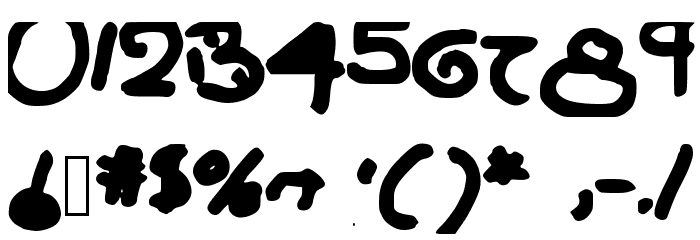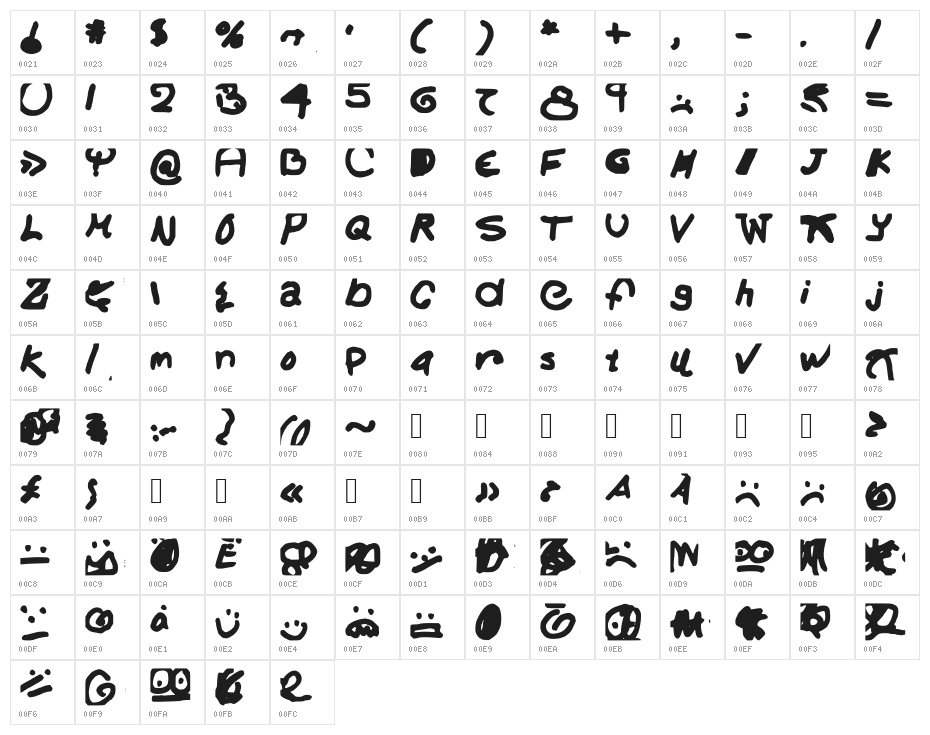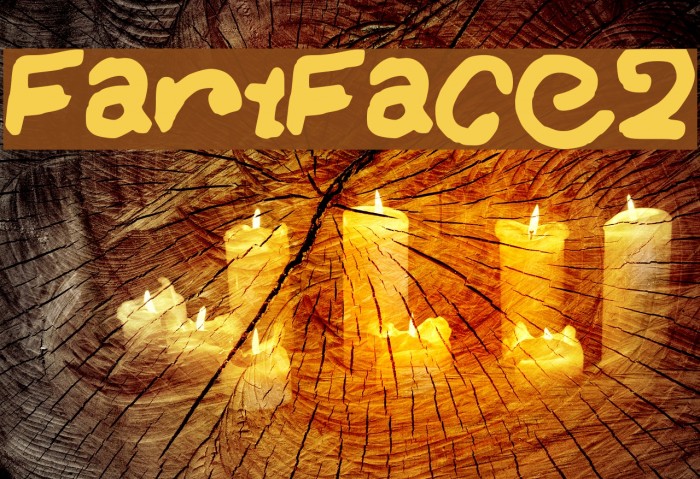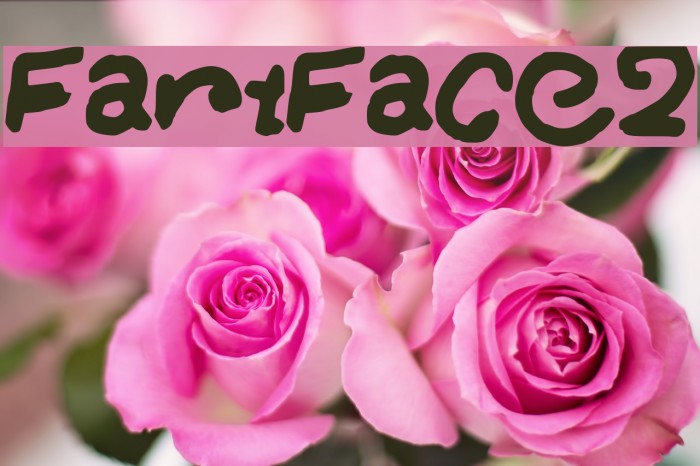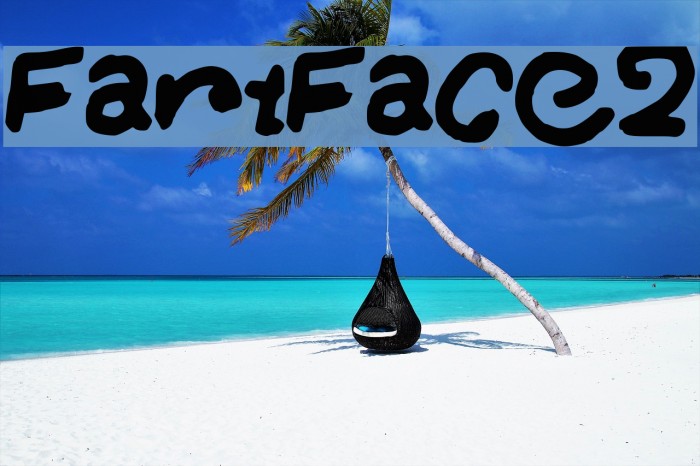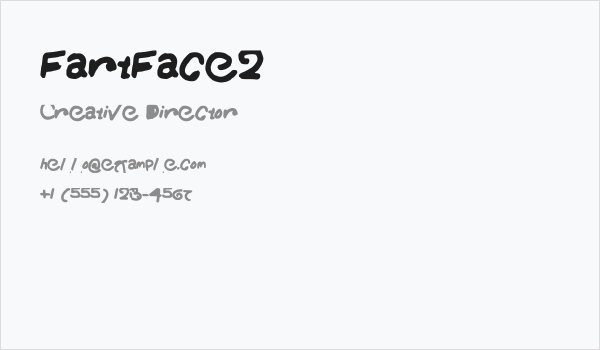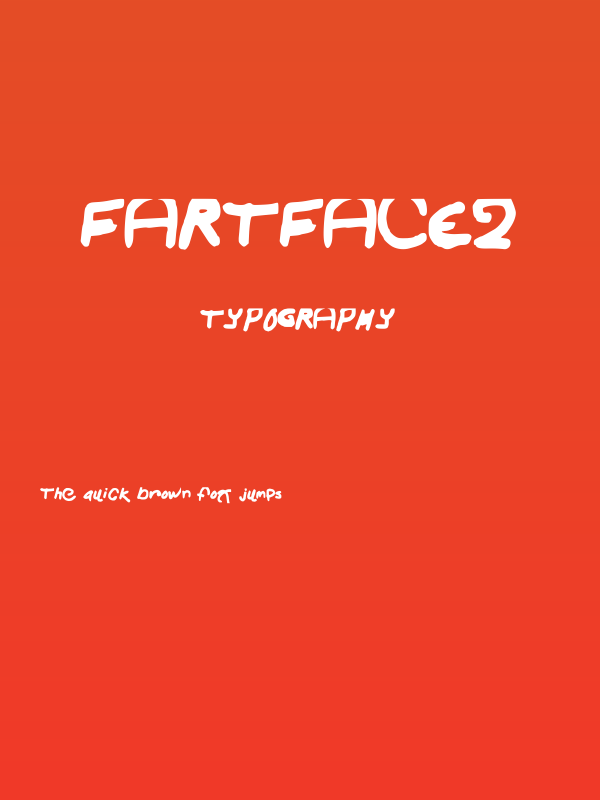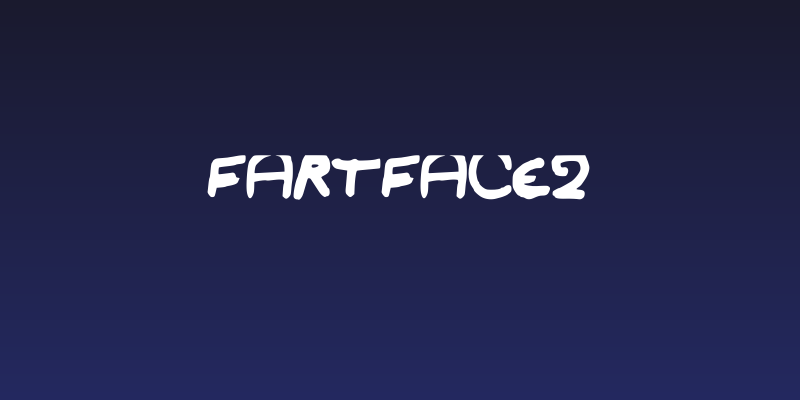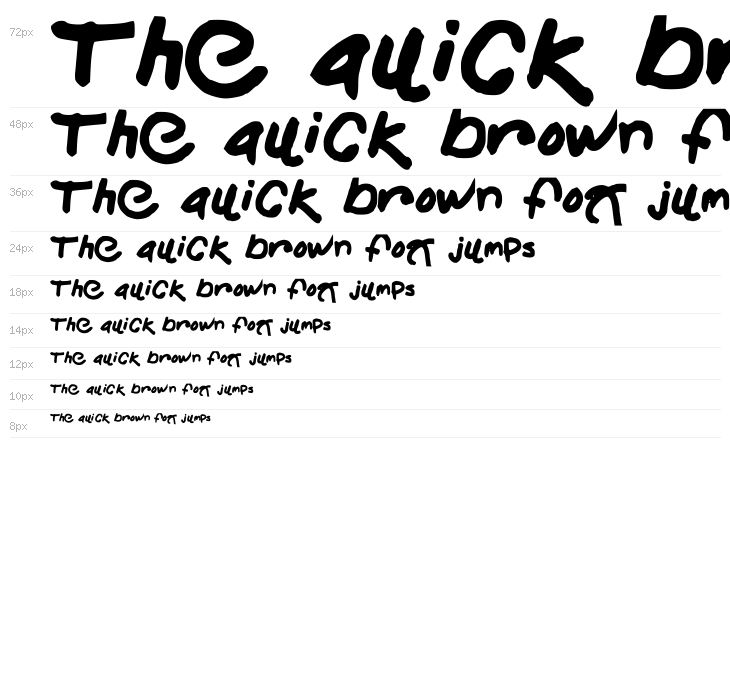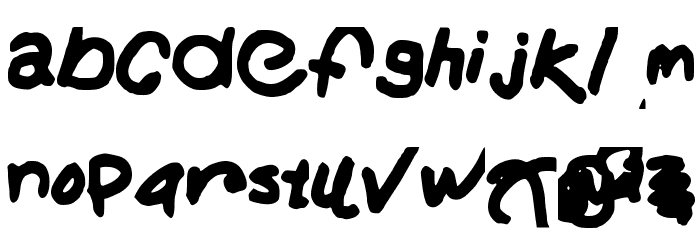
FartFace2 Font
FartFace2 Description
This font exhibits a playful and bold handwritten style, characterized by its thick, uneven strokes and a casual, informal appearance. The letters are slightly slanted, adding a dynamic and energetic feel. The uppercase and lowercase letters maintain a consistent style, with rounded edges and a somewhat irregular baseline, enhancing its whimsical nature. Numbers and special characters follow the same design principles, ensuring a cohesive look across all glyphs. The font's unique personality makes it stand out, offering a sense of creativity and fun.
FARTFACE2 UPPERCASE
FARTFACE2 LOWERCASE
FARTFACE2 OTHER CHARS